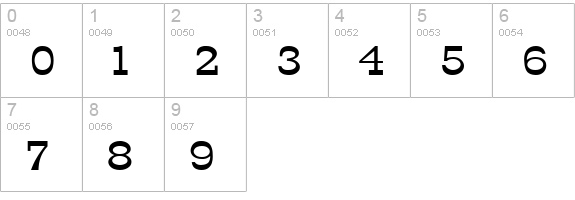
Circus-Extended Normal is the standard, neutral, extended-width variant in the Circus typeface family \xE2\x80\x94 well suited to general body text, paragraphs, and standard typographic work.
Circus-Extended Normal font is a whimsical and playful typeface that will bring a touch of fun to your projects. Its extended design makes it perfect for headlines, posters, and other display purposes. The bold and eye-catching letters will grab the attention of your audience and add a dynamic flair to your designs. This font is freely available to download at FontsMarket.com, allowing you to easily incorporate it into your creative projects without any cost. Whether you're working on a circus-themed event, a children's book, or simply want to add some personality to your designs, Circus-Extended Normal font is a great choice. Download it today and let your imagination run wild with this versatile and engaging typeface.